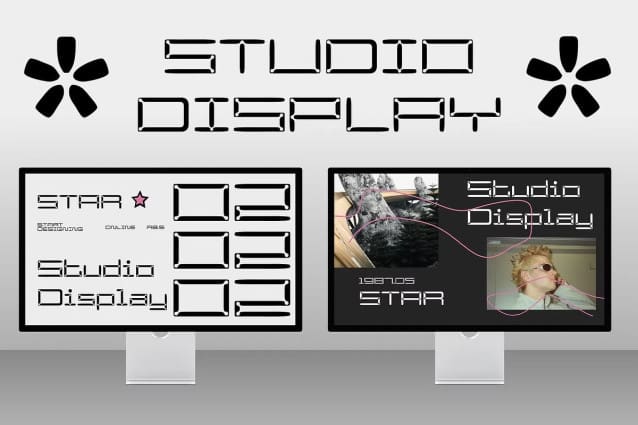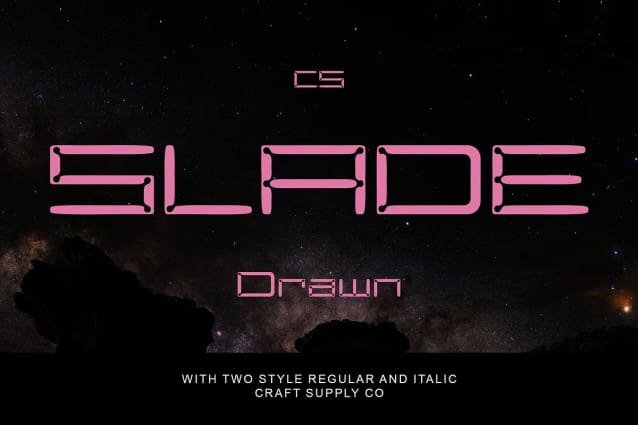
CS Slade Drawn Font
CS Slade Drawn Font is a modern sans-serif font with a wide form and inktrap shapes, offering a harmonious combination of spacious letterforms and distinctive corner cuts. The open, clean design enhances readability, while the inktrap details add a unique visual interest, making the font both functional and stylish. This blend of sleek modernity and creative artistry is perfect for designs that need a clear, bold impact with a personal touch.
A Perfect Balance of Clarity and Creativity The inktrap feature, which smooths transitions at the corners of the letters, contributes to improved legibility, especially when used in larger sizes. The hand-drawn effect softens the overall design, infusing each letter with a handcrafted, artistic essence. This combination creates a perfect balance between contemporary style and expressive character, making it ideal for projects that require both clarity and a distinct, creative flair.
Ideal for Bold Branding and Editorial Projects This drawn font excels in branding, editorial designs, and digital graphics, offering a versatile look that can adapt to a wide range of creative applications. Whether used for headlines, logos, or promotional materials, this font stands out with its bold, spacious letterforms and artistic touch, ensuring a memorable, impactful presence in any design project.